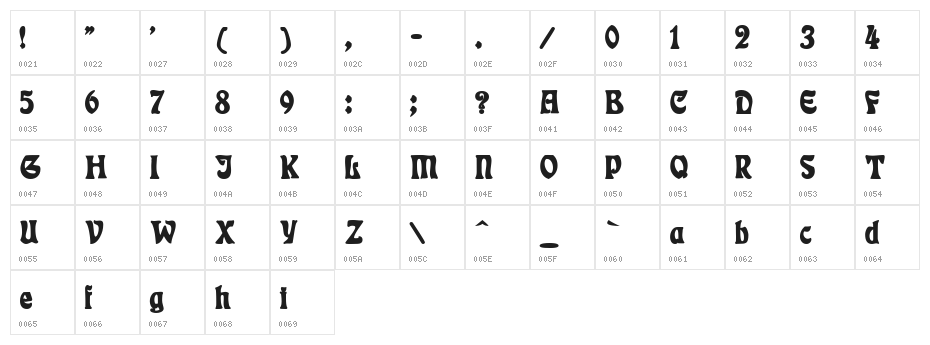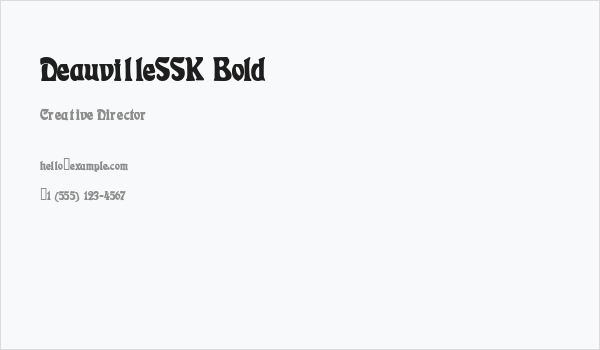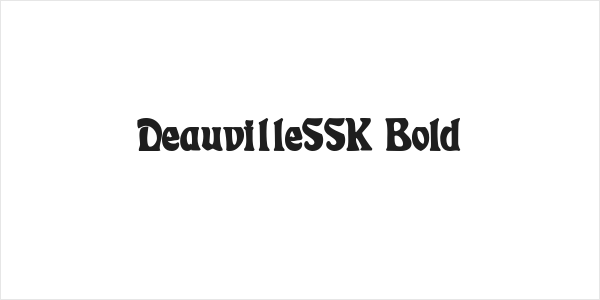
DeauvilleSSK Bold Font
DeauvilleSSK Bold Description
This font features a bold and dramatic style with a strong presence. The characters are heavily stylized with thick strokes and unique, curved serifs that give it a distinctive look. The uppercase letters are particularly bold, with a slight inward curve that adds a touch of elegance. The lowercase letters maintain the same boldness, with a consistent stroke width that ensures readability. The numbers are equally bold, with a uniform design that complements the letters. Special characters are included, maintaining the same stylistic elements. This font is ideal for making a statement, with its eye-catching design and strong visual impact.
Proposed ProjectsIdeal for posters, headlines, branding, and any project that requires a strong visual impact.